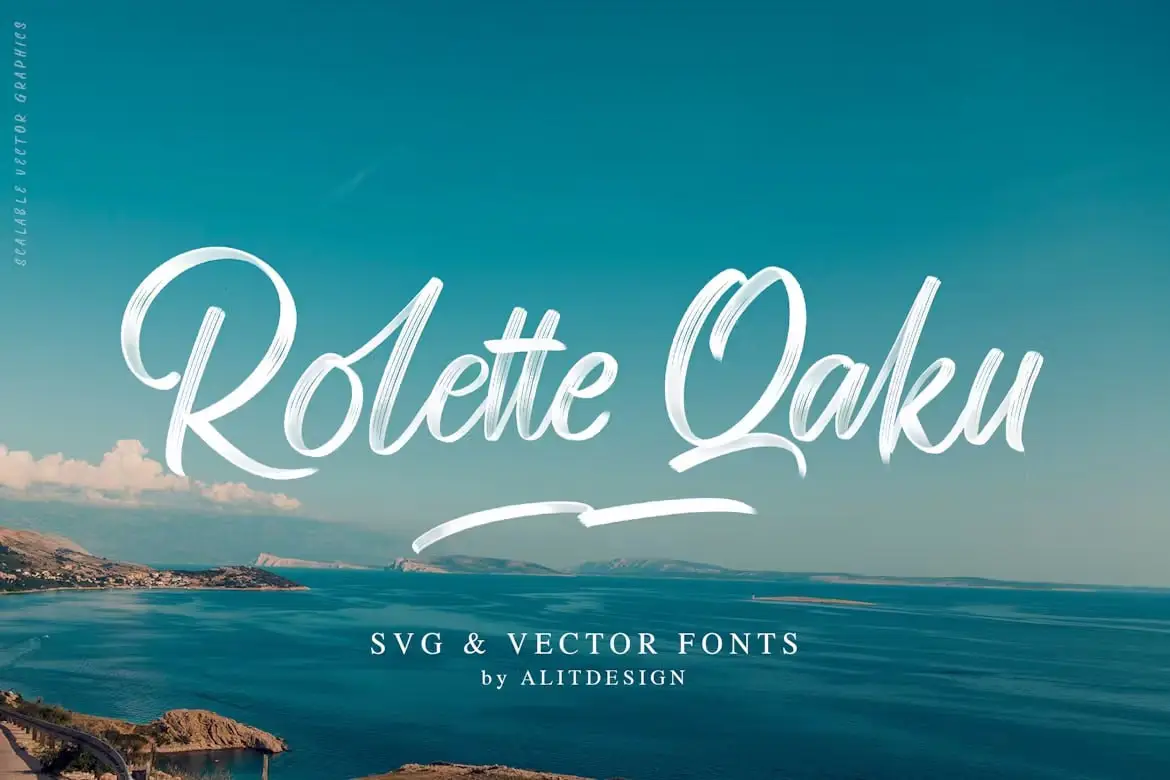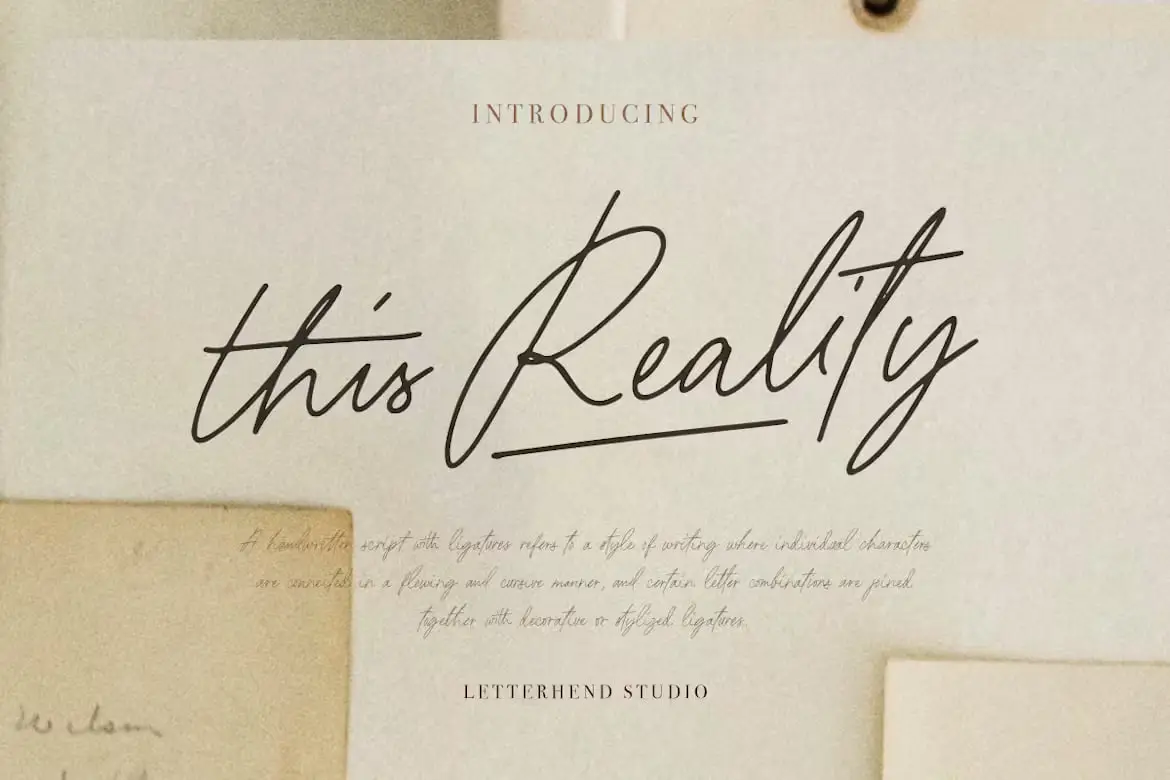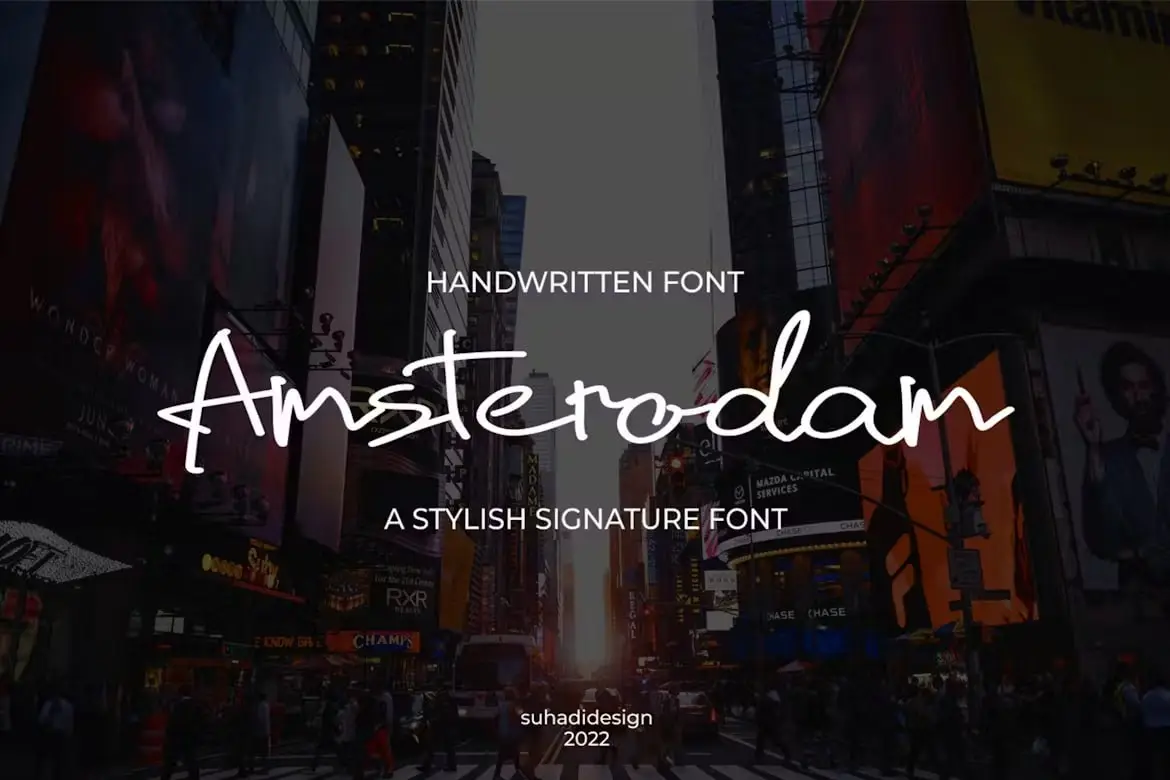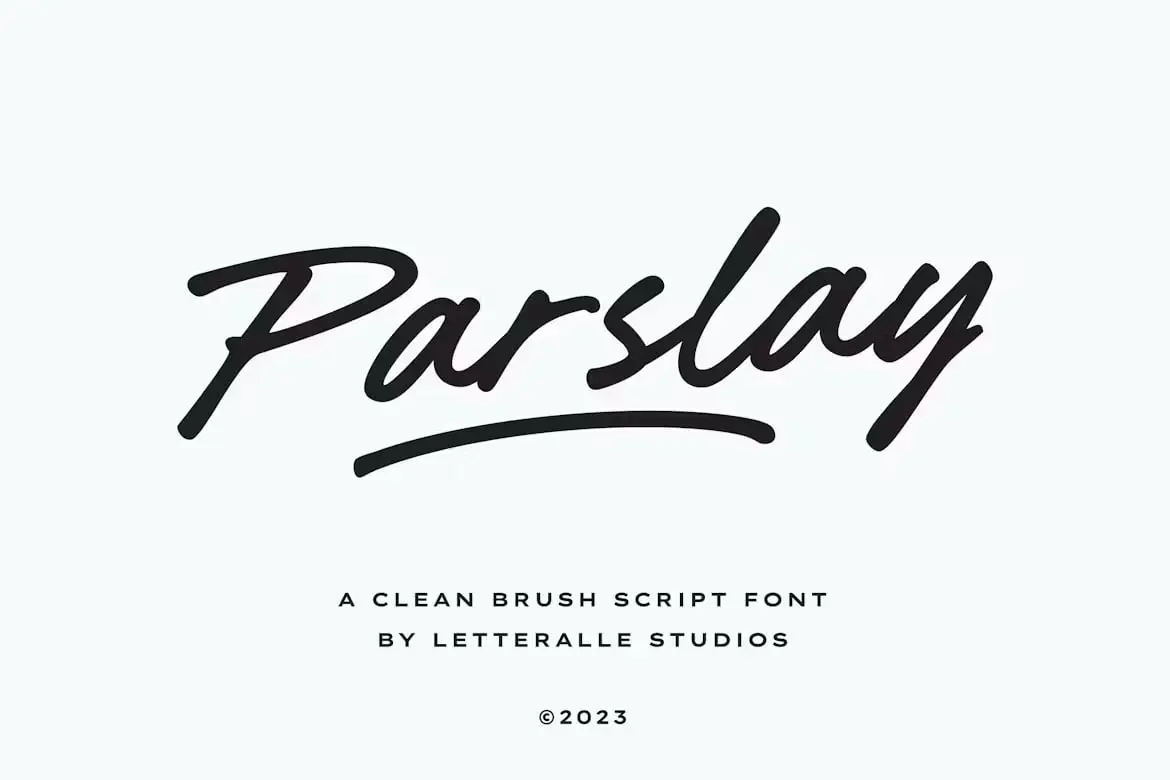
Script And Handwritten Fonts Set
Elevate your design projects with our Script and Handwritten Fonts Set. This collection features a variety of beautifully crafted fonts that bring a personal touch to your branding, logos, and print materials.
• Includes multiple styles of script and handwritten fonts
• Variety of weights for versatile design options
• High-quality, professional design
• Perfect for creating stunning logos and branding materials
• Ideal for invitations, greeting cards, and personal projects
• Use in web design to add a unique flair to your site